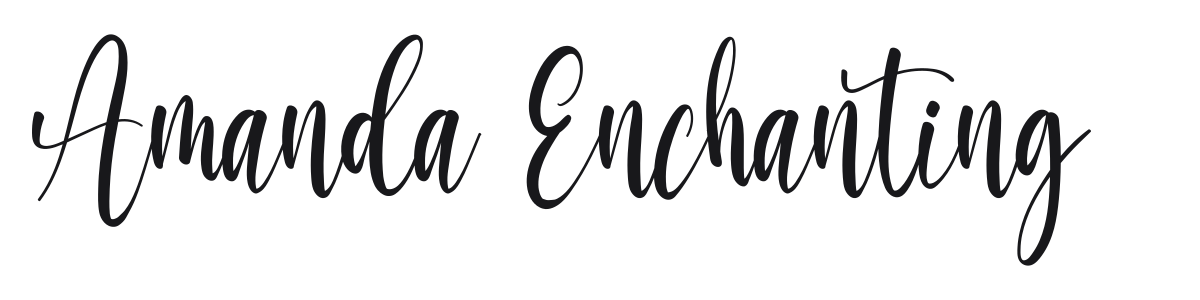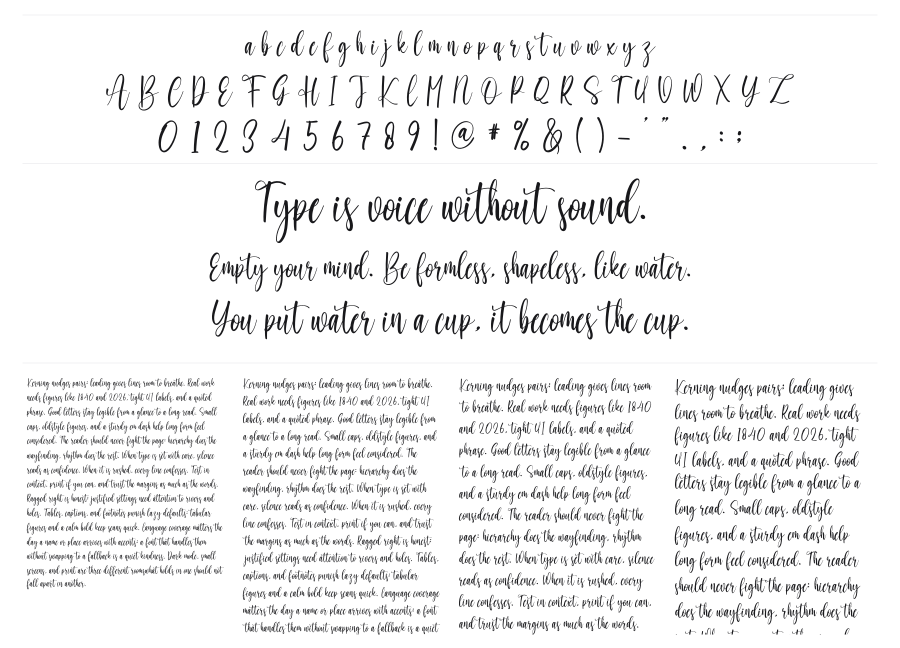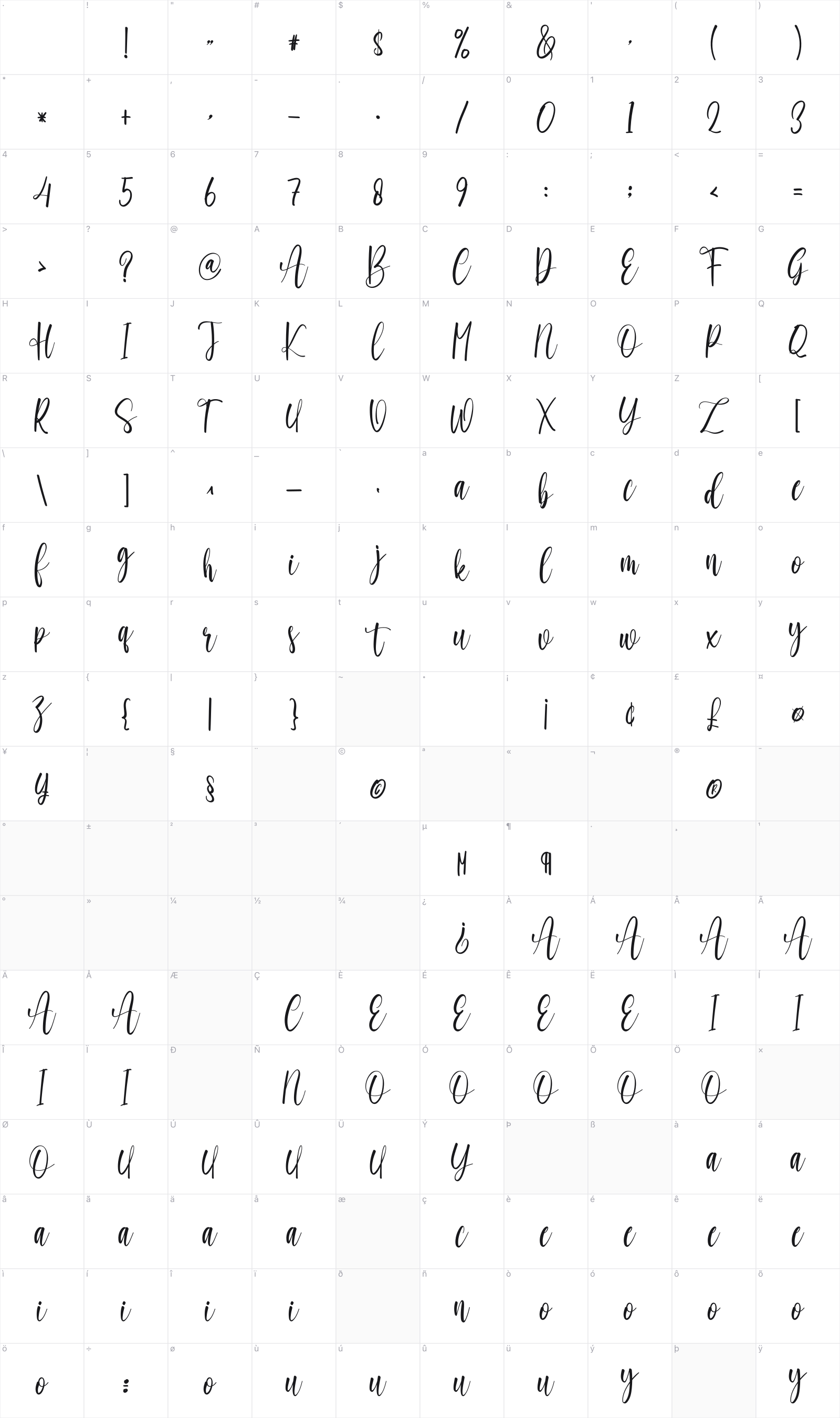
Amanda Enchanting
Amanda Enchanting is a contemporary casual script that bridges calligraphic tradition with a lively, modern rhythm. The bouncy baseline and expressive loops give it a handwritten warmth, while the moderate stroke contrast keeps it polished. It works especially well on wedding stationery, brand identity, and editorial titles where personality matters.